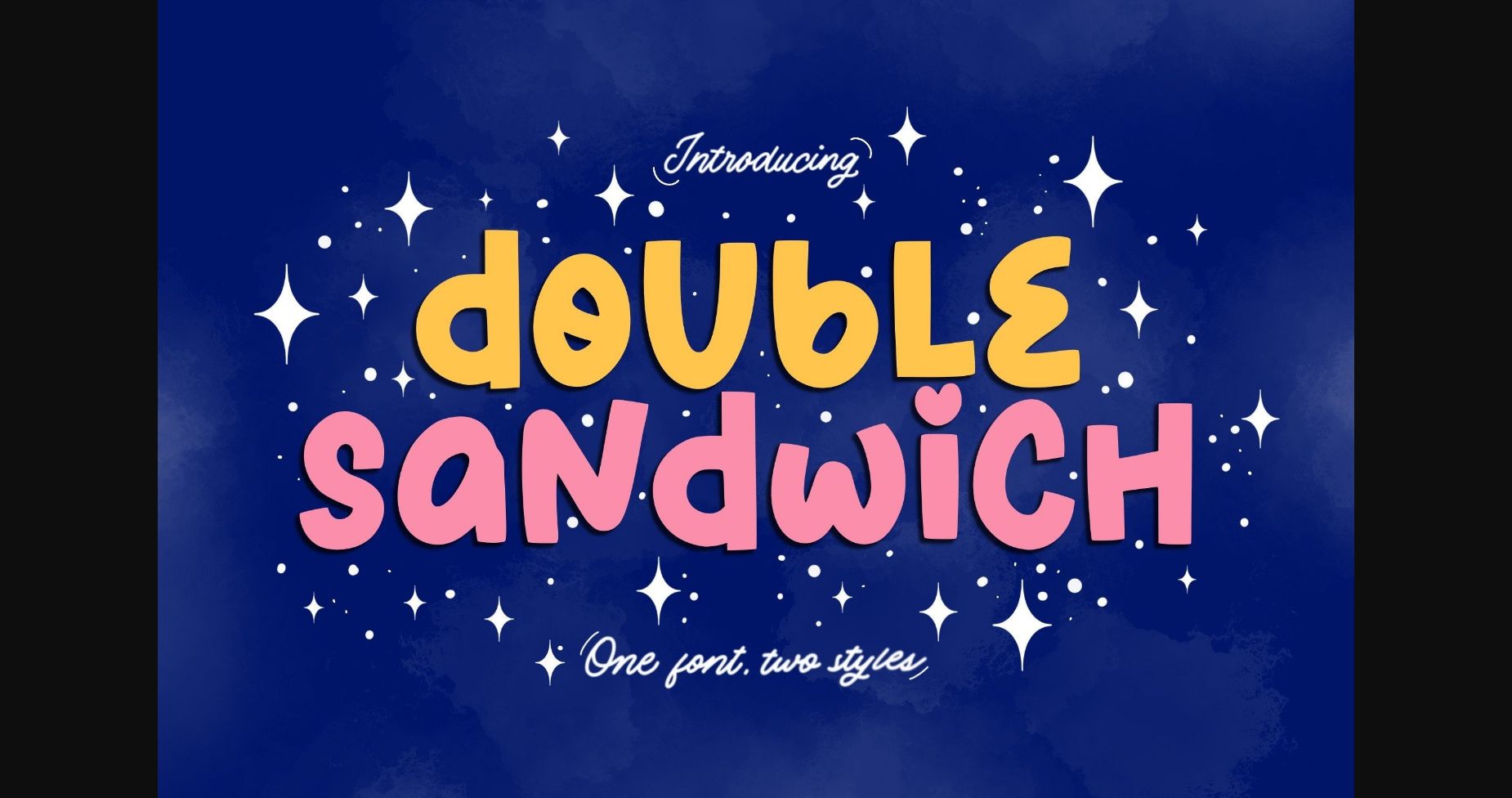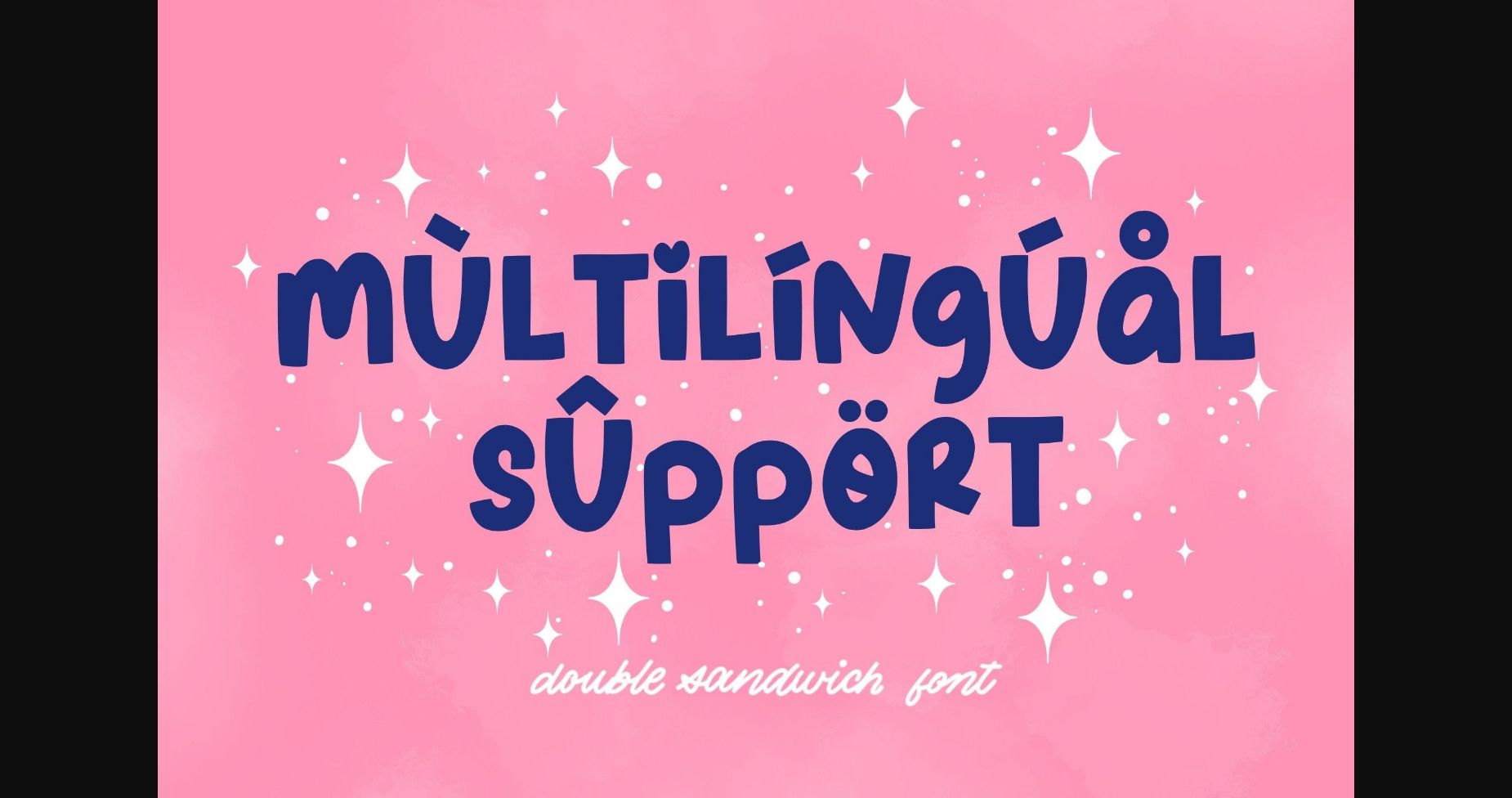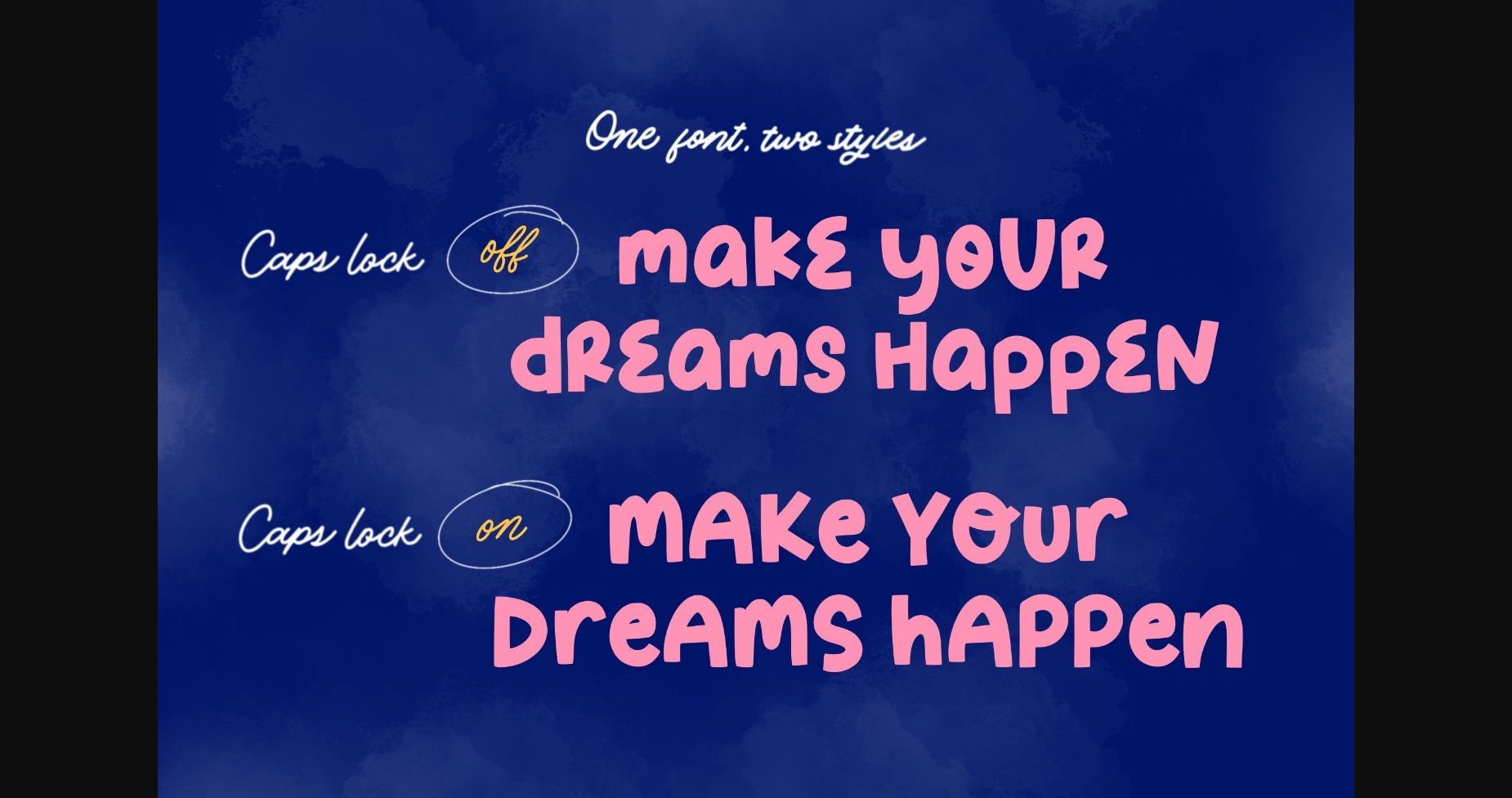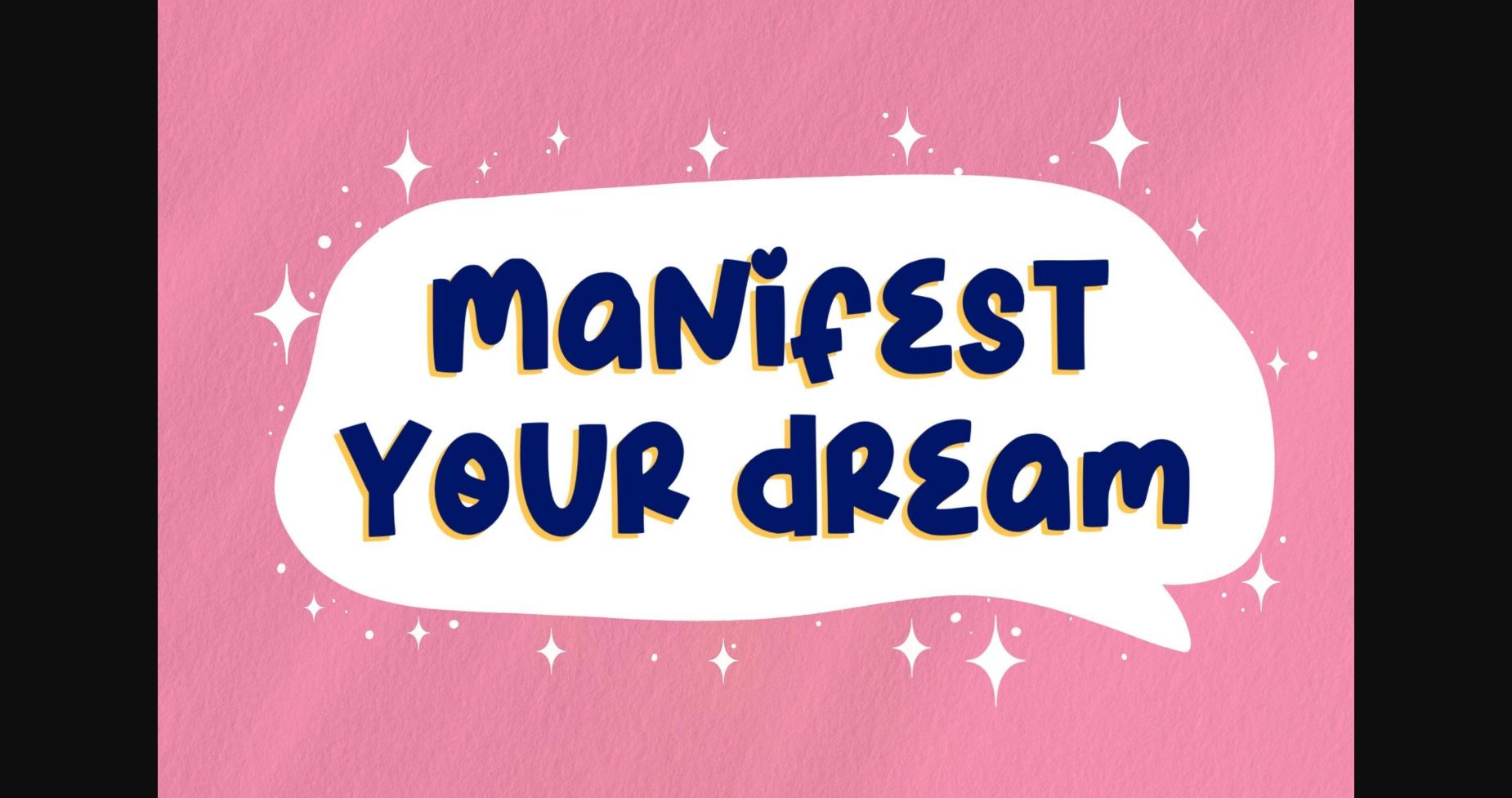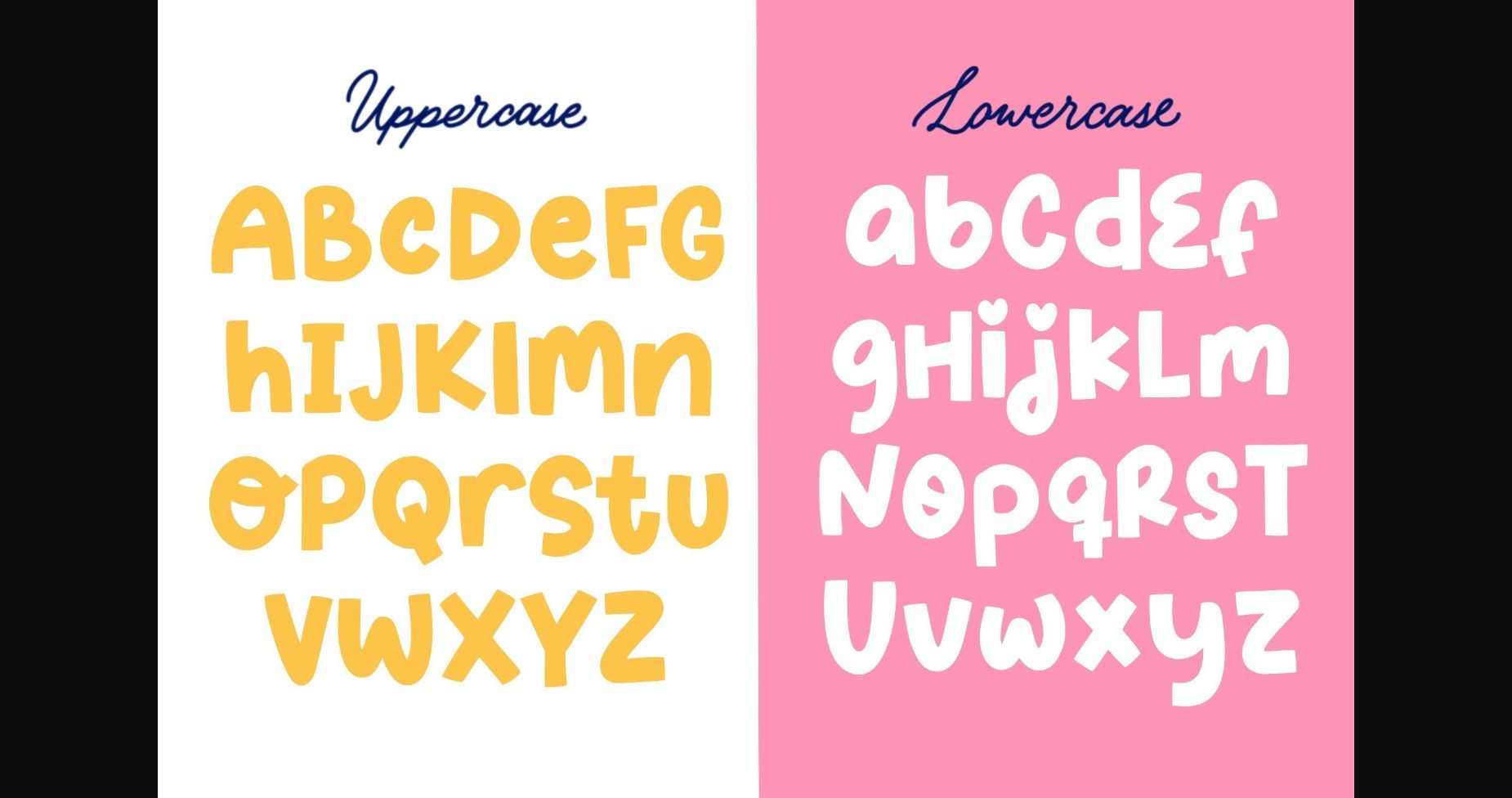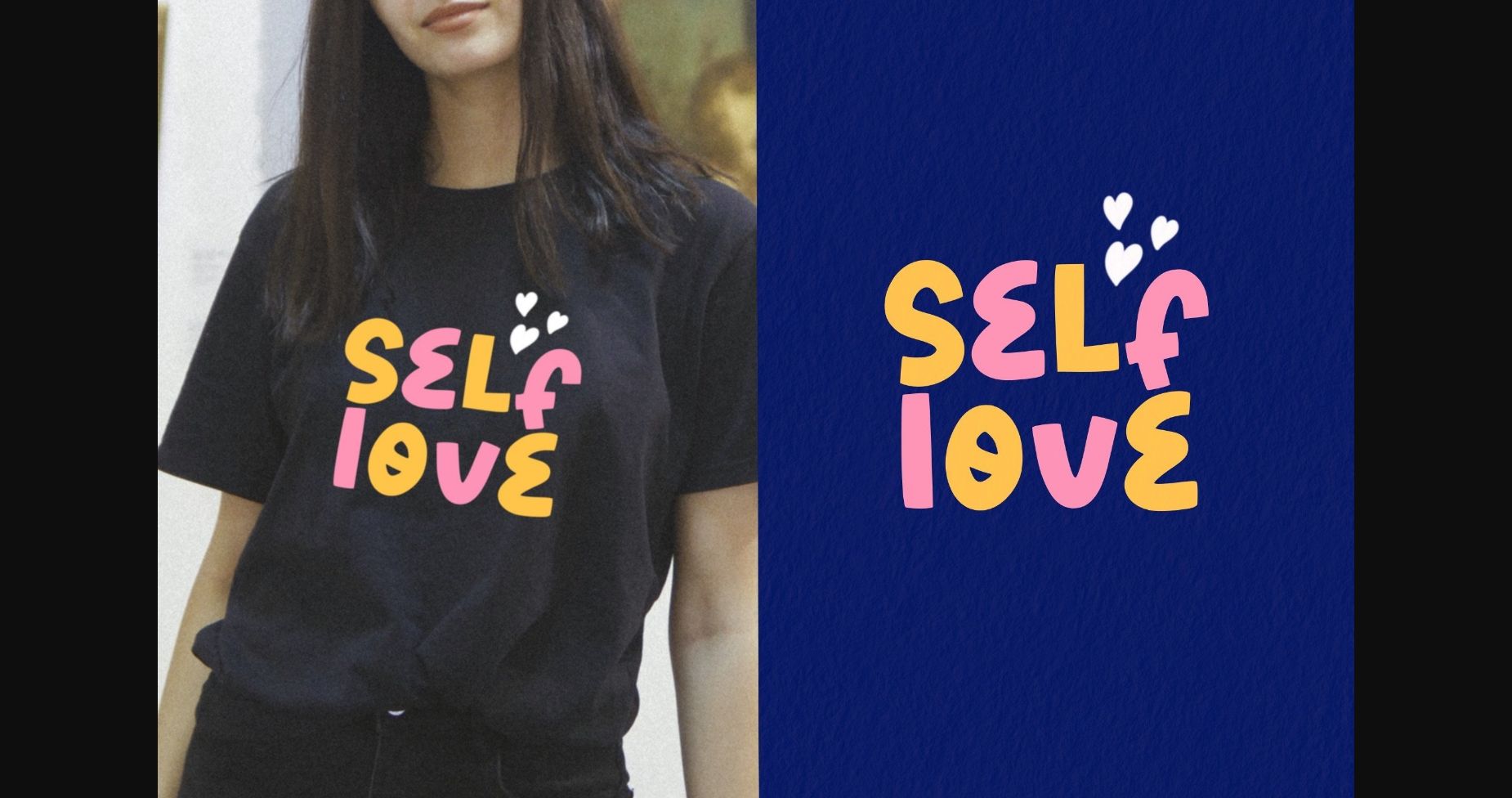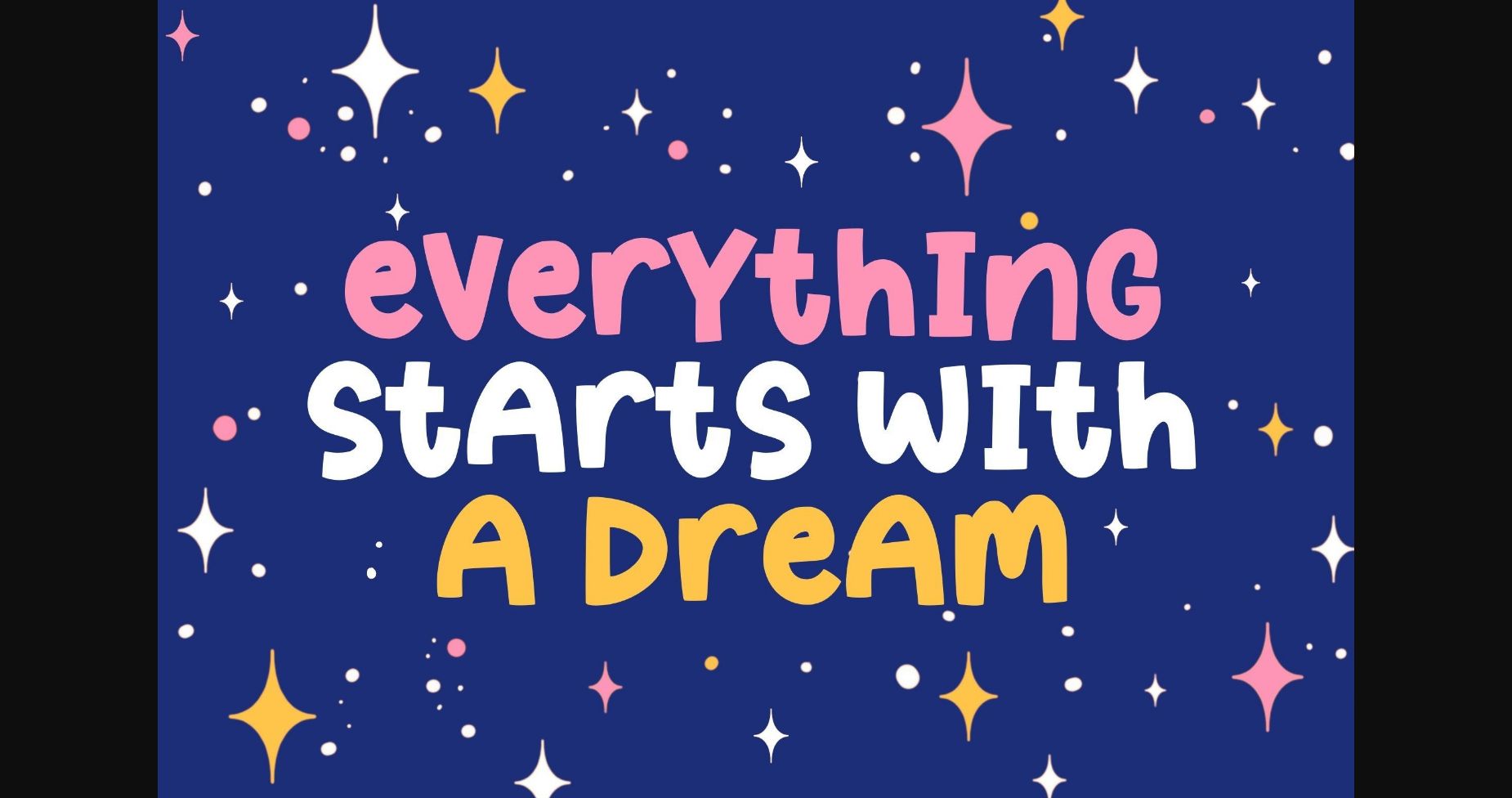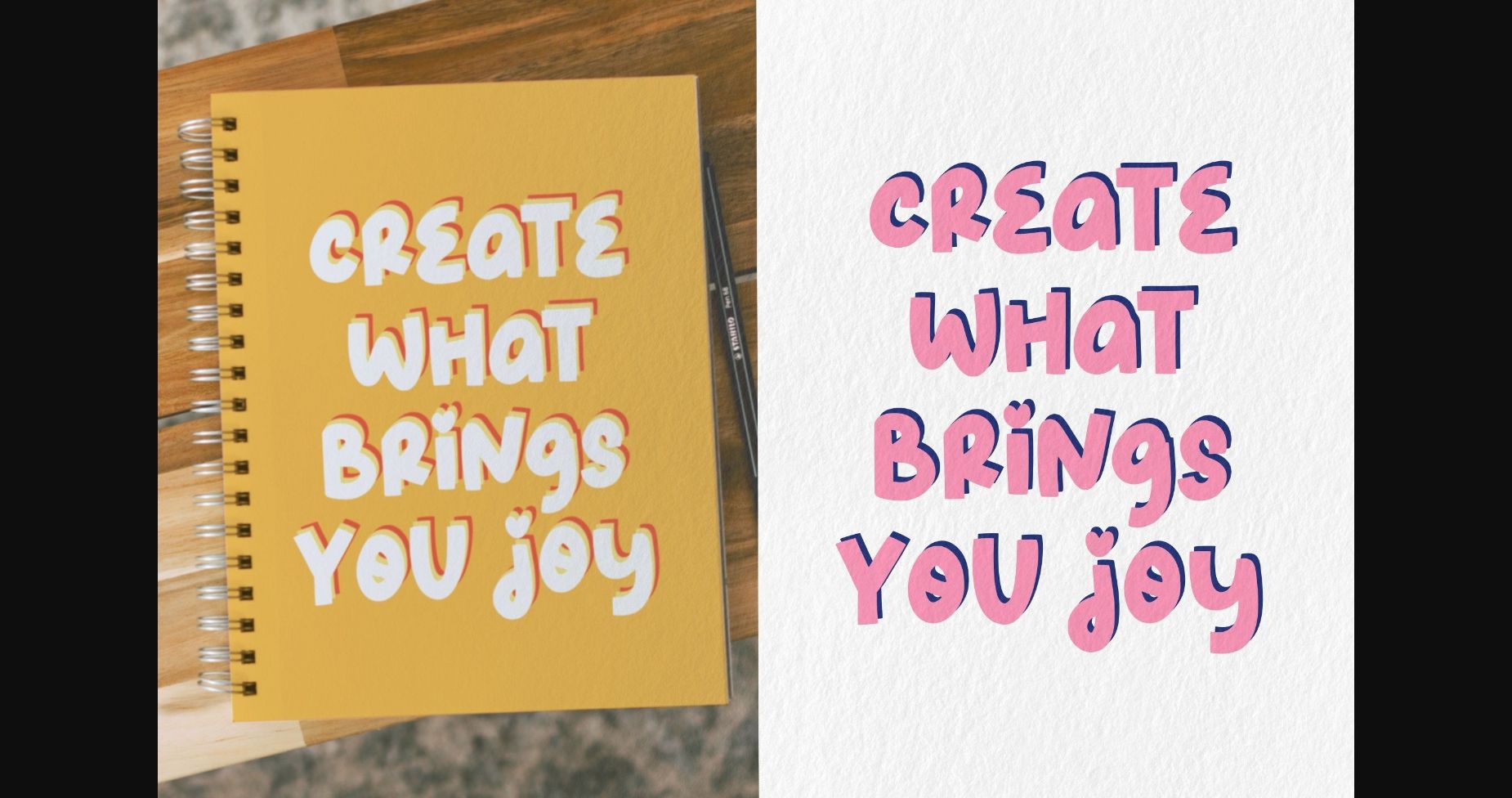
About Double Sandwich Font
Double Sandwich is a playful sans font with two styles. Double Sandwich will be perfect for stickers, greeting cards, logos, posters, or anything that requires a fun and playful look!
This font is also suitable to be combined with a script that will make your design more perfect. Also already PUA Encoded!